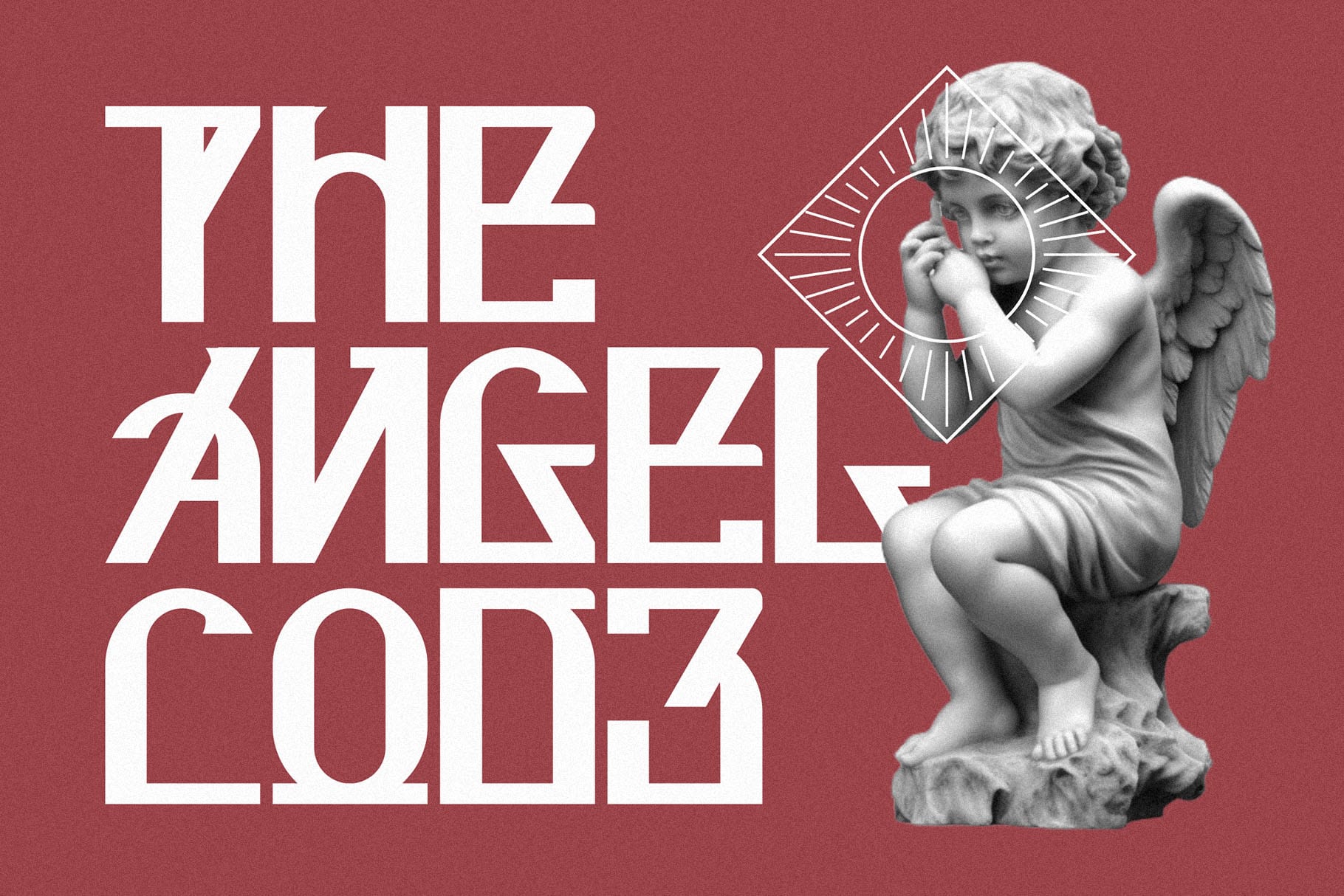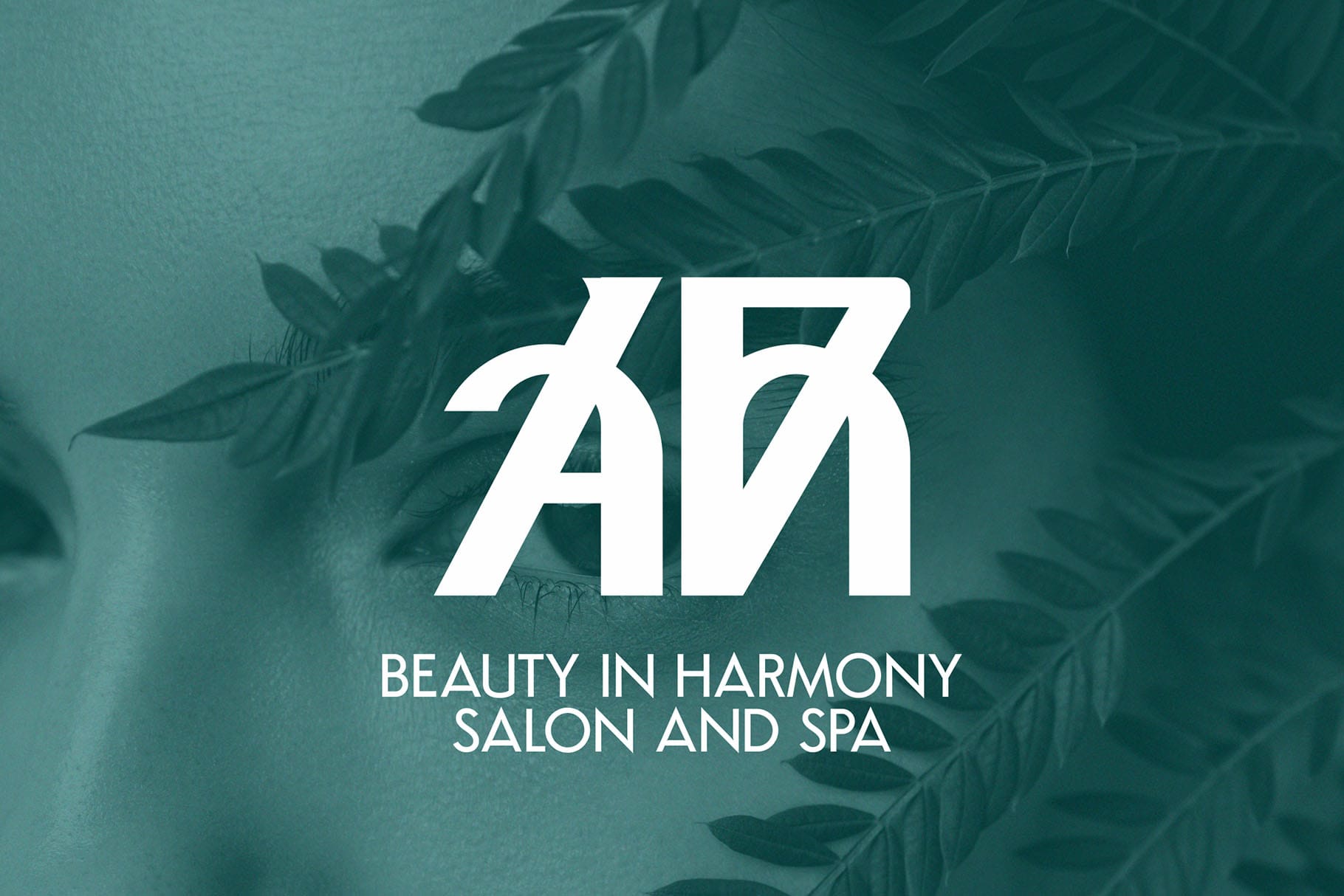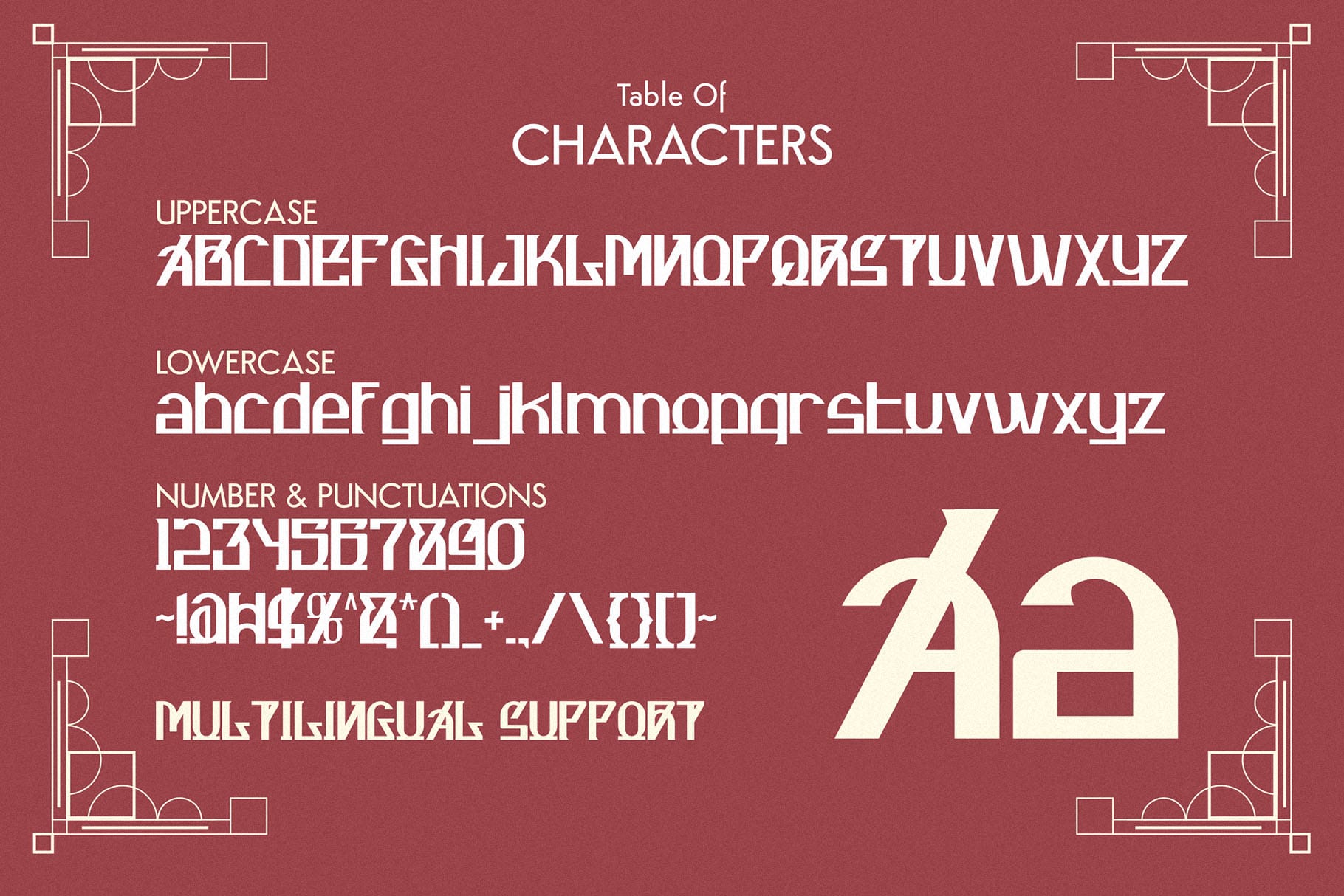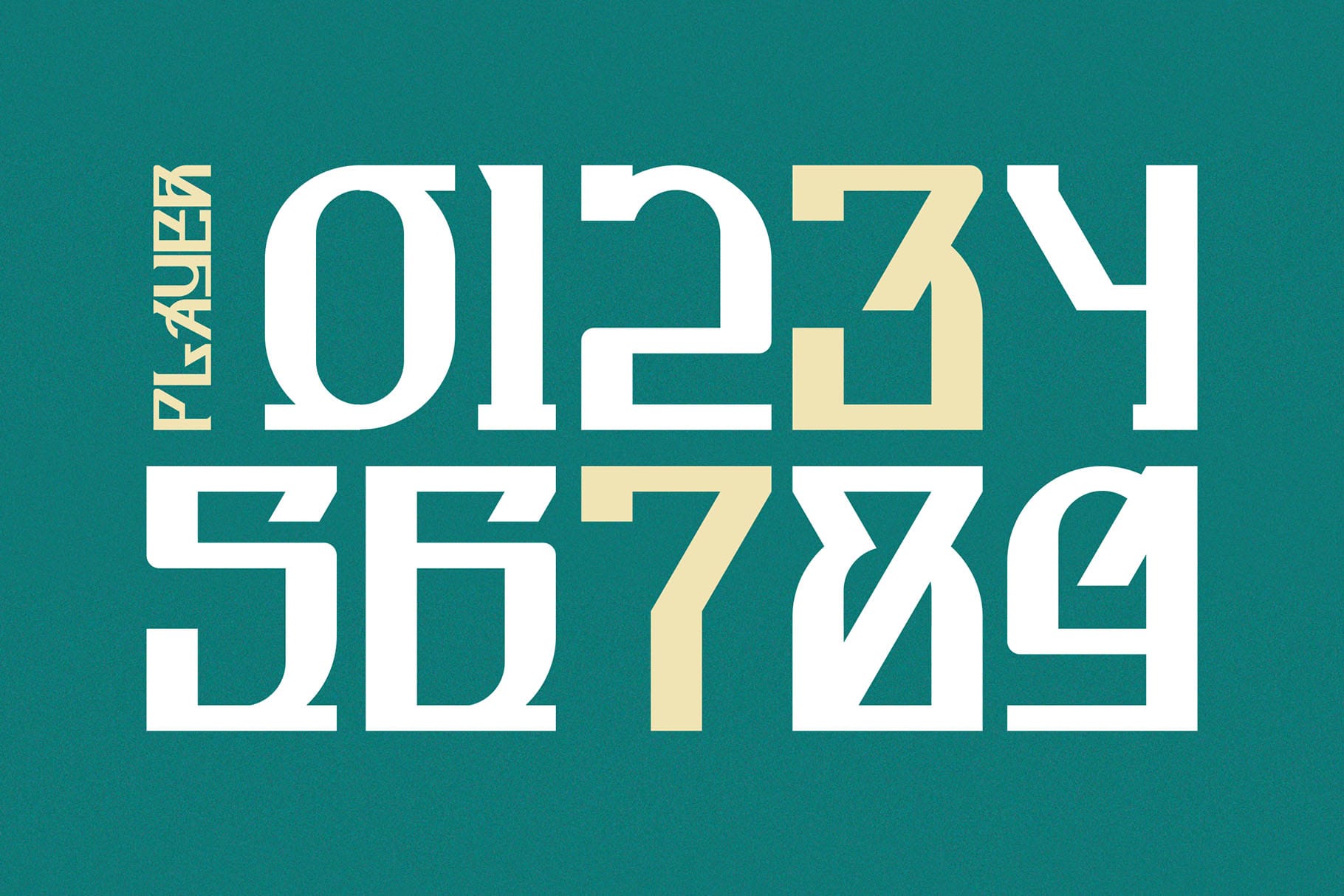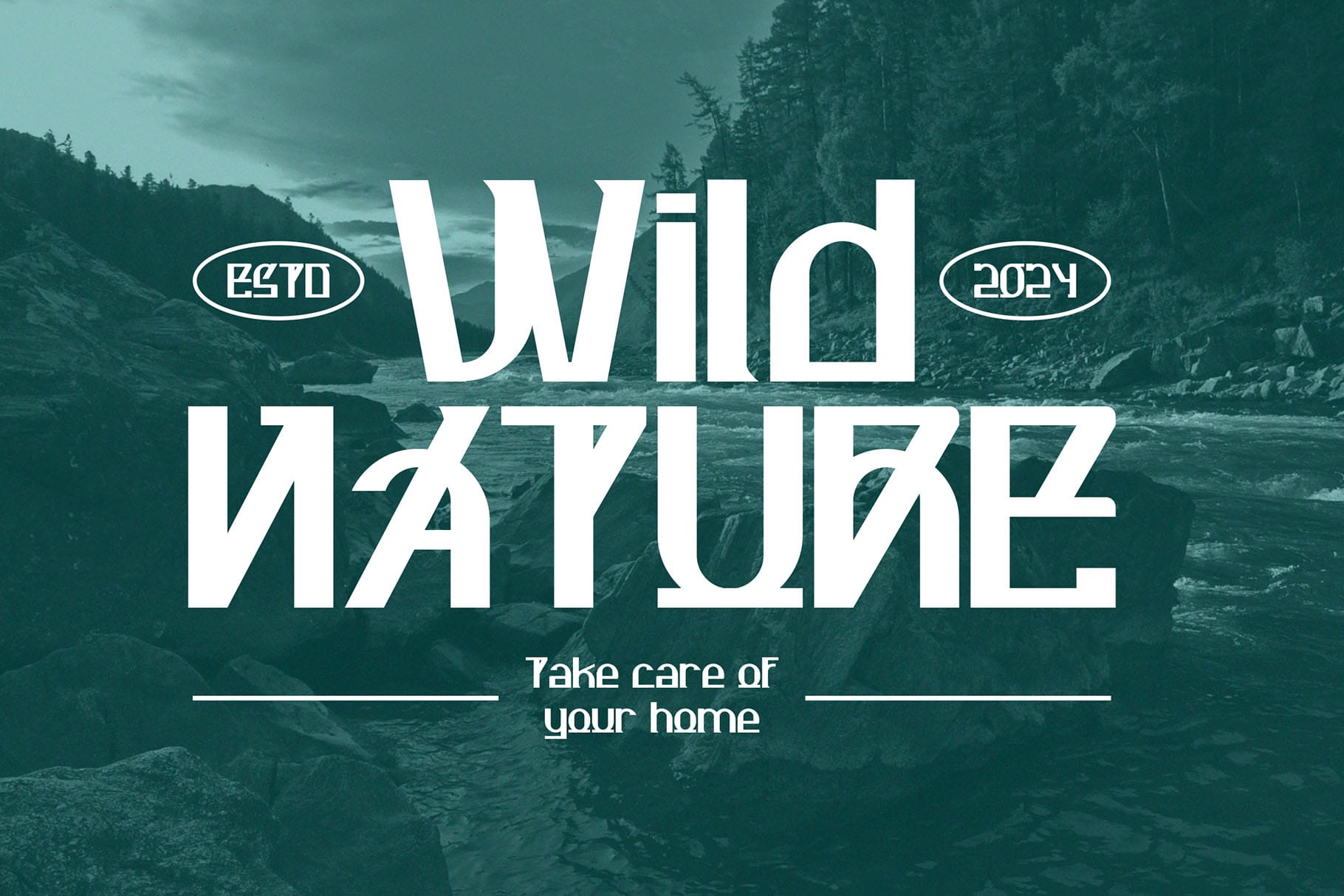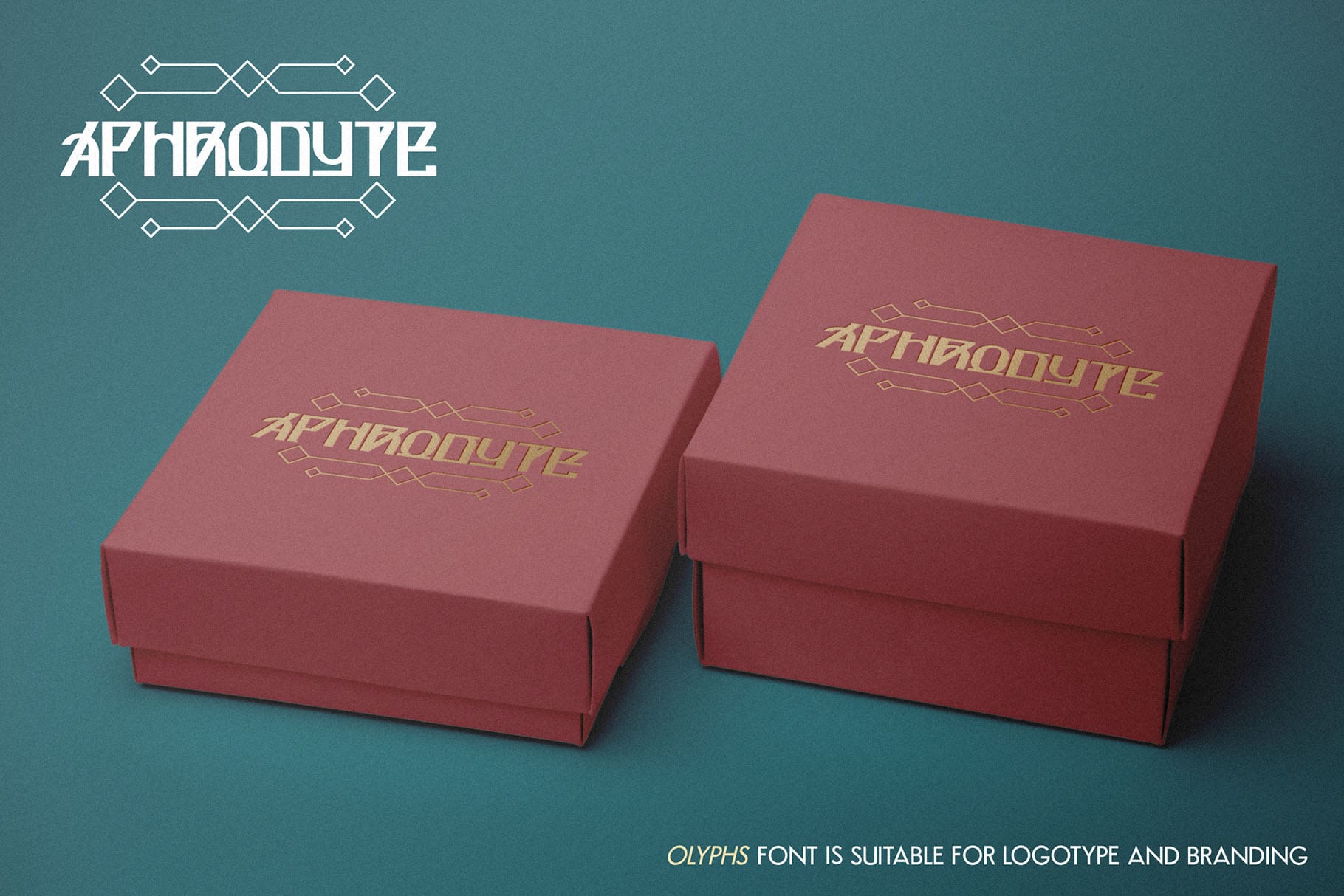
Introducing Olyphs – the epitome of luxury and sophistication in the world of typography. Inspired by the iconic Art Deco movement, Olyphs exudes timeless elegance and opulence, making it the perfect choice for projects that demand a touch of refined glamour and vintage charm.
✨ Timeless Elegance: Step into a world of luxury with Olyphs. Each letter is meticulously crafted with intricate details and geometric flourishes, evoking the lavishness and grandeur of the Art Deco era. From elegant logos to stylish invitations, this font exudes sophistication that captivates the eye.
🌟 Sleek and Stylish: With its sleek lines and polished finish, Olyphs adds a touch of timeless sophistication to any project. Whether you’re designing for print or digital media, this font ensures your message is conveyed with grace and style, leaving a lasting impression on all who behold it.
🎩 Old Hollywood Glamour: Channel the glamour of Old Hollywood with Olyphs. This font captures the spirit of classic cinema and the allure of the silver screen, making it the perfect choice for movie posters, film titles, and vintage-inspired branding projects that harken back to the golden age of entertainment.
📜 Versatile Application: Olyphs is not confined to any particular niche or industry. Its versatility allows it to shine in a variety of projects, from branding and advertising to editorial design and beyond. Wherever you need to add a touch of Art Deco flair, Olyphs is ready to elevate your designs to new heights.
🖋️ Crafted with Precision: Each letter of Olyphs is thoughtfully designed to ensure optimal legibility and visual impact. With its seamless integration into design projects, this font allows you to express your creativity with confidence, delivering stunning results every time.
Experience the luxury of Art Deco elegance with Olyphs – the font that captures the essence of vintage glamour and sophistication. It’s time to elevate your designs and indulge in the opulence of Olyphs leading the way